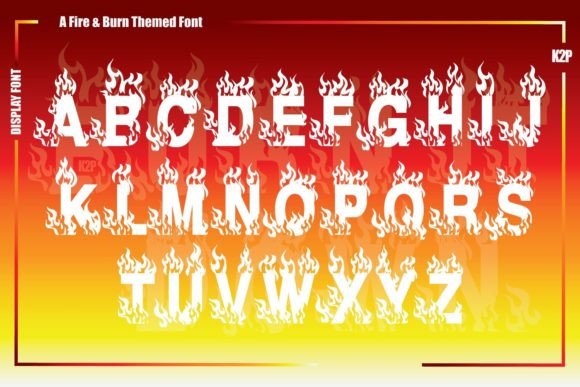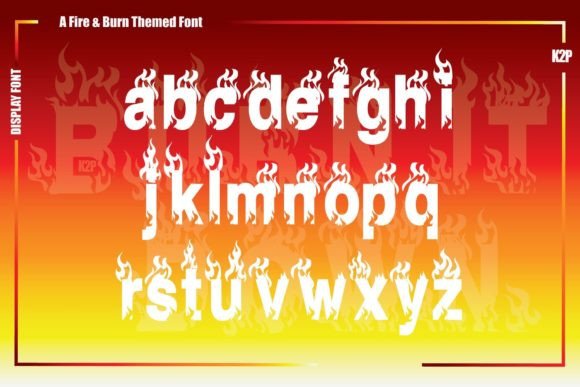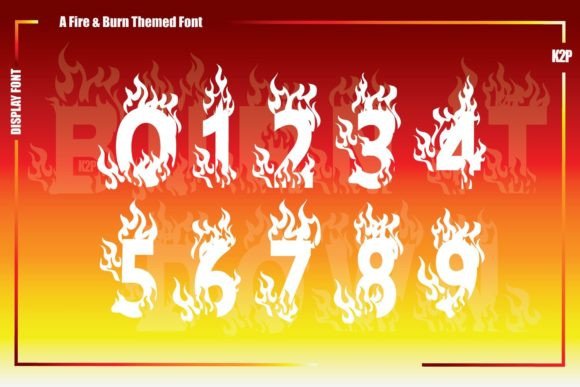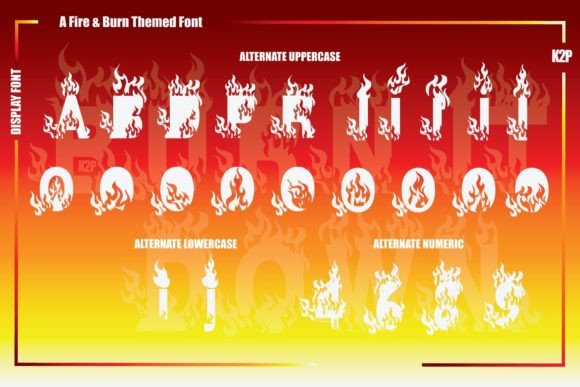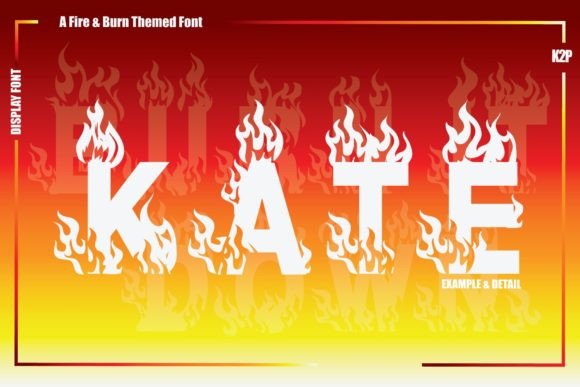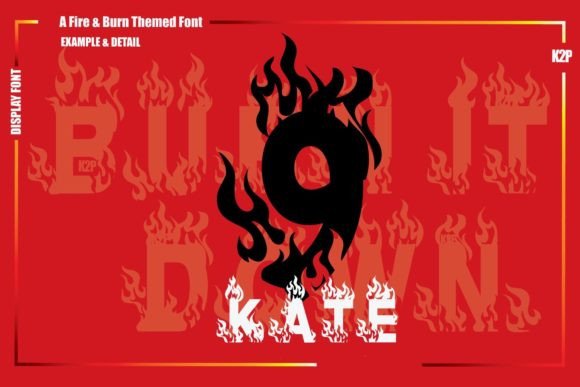
Unleash Your Creativity with Burn It Down Font
Are you tired of using the same old fonts in your designs? Do you want to add a touch of boldness and daring to your creations? Look no further than the Burn It Down Font, a unique and thick lettered decorative font that’s sure to elevate your font library.
The Power of Burn It Down Font
Burn It Down Font is a game-changer for designers and crafters alike. Its thick, bold letters and daring design make it perfect for a wide range of projects, from bold headlines to eye-catching posters. No matter the topic, this font is sure to make a statement and grab the attention of your audience.
What Makes Burn It Down Font So Special?
So, what sets Burn It Down Font apart from other fonts on the market? For starters, its unique and daring design is sure to make it stand out from the crowd. But that’s not all – this font is also PUA encoded, which means that you can access all of the glyphs and swashes with ease. This makes it incredibly versatile and easy to use, even for those who are new to font design.
The Benefits of PUA Encoding
So, what is PUA encoding and why is it so important? PUA (Private Use Area) encoding is a system that allows font designers to include additional characters and glyphs in their fonts, making them more versatile and useful. In the case of Burn It Down Font, PUA encoding means that you can access a wide range of glyphs and swashes, allowing you to customize your text and make it truly unique.
How to Use Burn It Down Font in Your Designs
Burn It Down Font is perfect for designers and crafters alike. Whether you’re creating bold headlines, eye-catching posters, or unique craft projects, this font is sure to be an asset to your font library. Its versatility and ease of use make it perfect for a wide range of projects, from digital designs to handmade crafts.
Elevate Your Creations with Burn It Down Font
So, if you’re looking to elevate your creations and add a touch of boldness and daring to your designs, look no further than Burn It Down Font. With its unique and thick lettered design, PUA encoding, and ease of use, this font is sure to be a game-changer for designers and crafters alike. Download Burn It Down Font today and start creating with confidence!
Key Features of Burn It Down Font
- Unique and thick lettered decorative font
- Daring design perfect for bold headlines and eye-catching posters
- Perfect for designers and crafters alike
In conclusion, Burn It Down Font is a unique and powerful font that’s sure to elevate your font library. With its bold and daring design, PUA encoding, and ease of use, this font is perfect for designers and crafters alike. Whether you’re creating bold headlines, eye-catching posters, or unique craft projects, Burn It Down Font is sure to be an asset to your creative endeavors. So why wait? Download Burn It Down Font today and start creating with confidence!